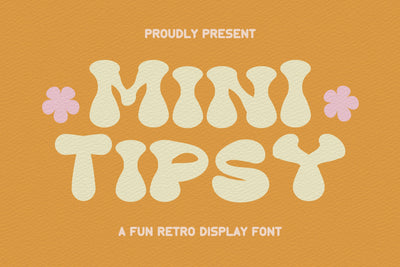
Mini Tipsy - Fun Retro Font
Hi, Introducing **Mini Tipsy - Fun Retro Display font.**
A display font with an Old Retro style that is fun and cute and of course adorable wrapped in a groovy style. which is very cool for t-shirt designs, crafts, print on demand, stickers, screen printing, tumblr, wall art, svg files, cricut, silhouettes, graphic photos, social media, and many other creative ideas.